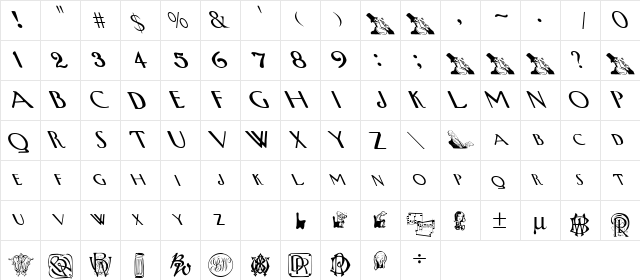
Upp West Extreme Leftis Regular
Design Context for Upp West Extreme Leftis Typeface
Upp West Extreme Leftis is a composed and adaptable typeface that performs quietly and consistently across a wide range of design contexts.
Pro Tip: Use Upp West Extreme Leftis in both headline and body roles to test its range before committing to a single application.